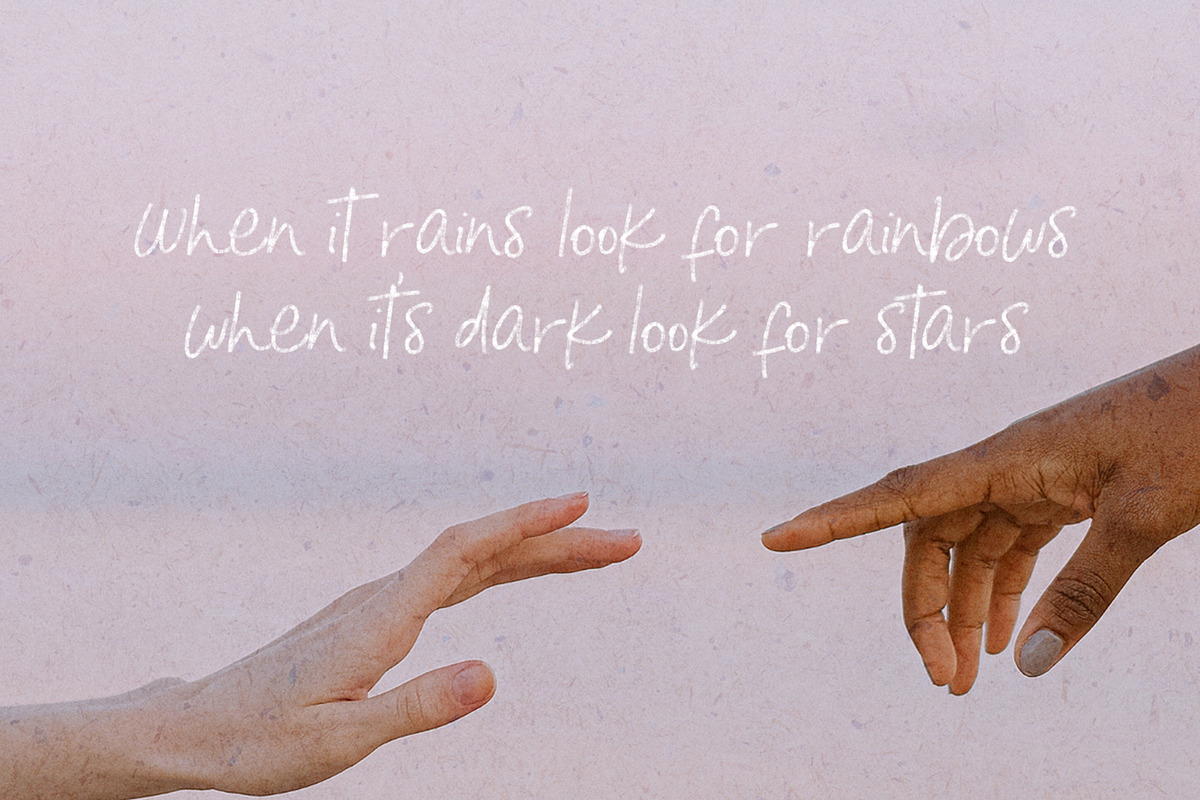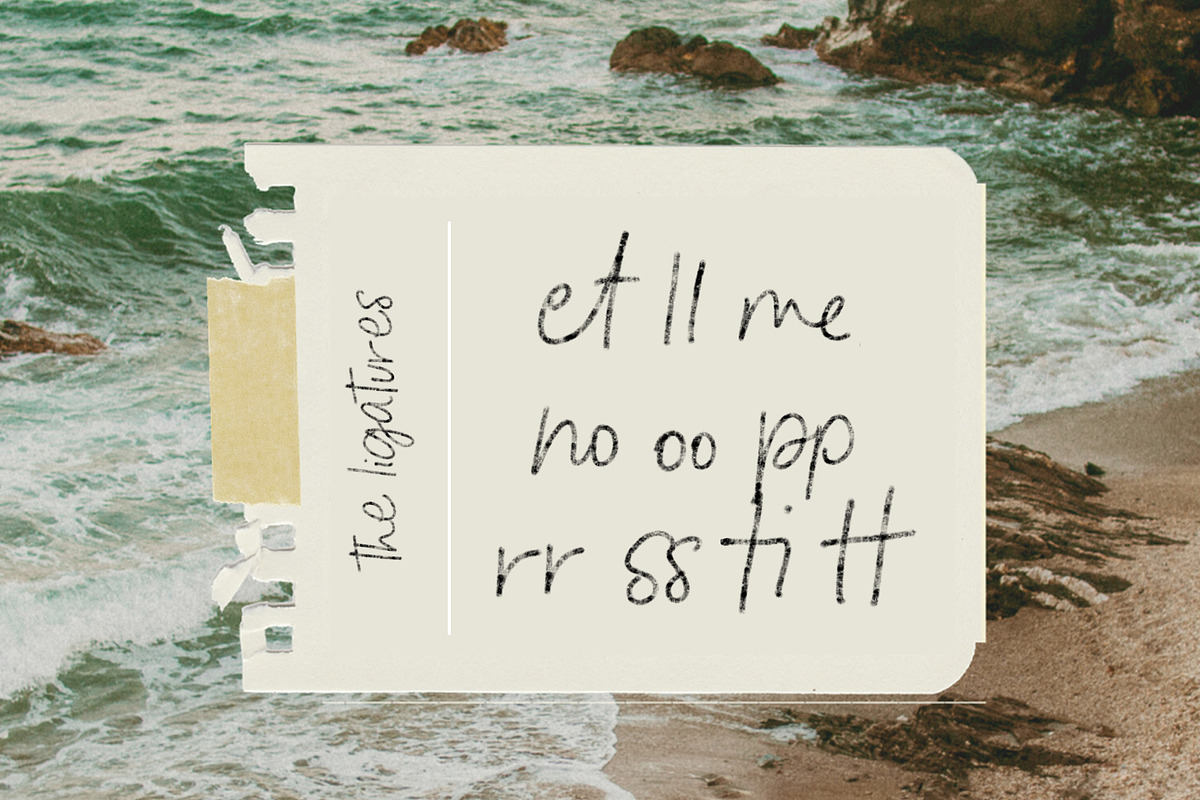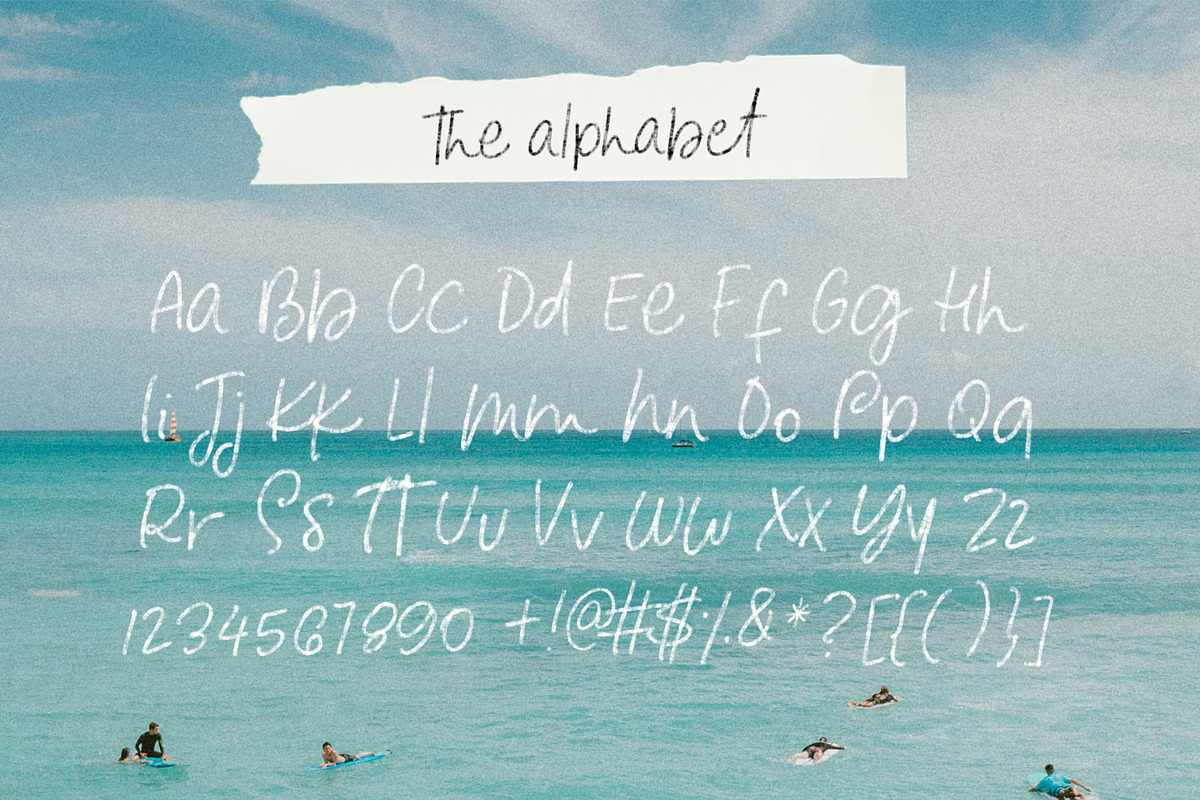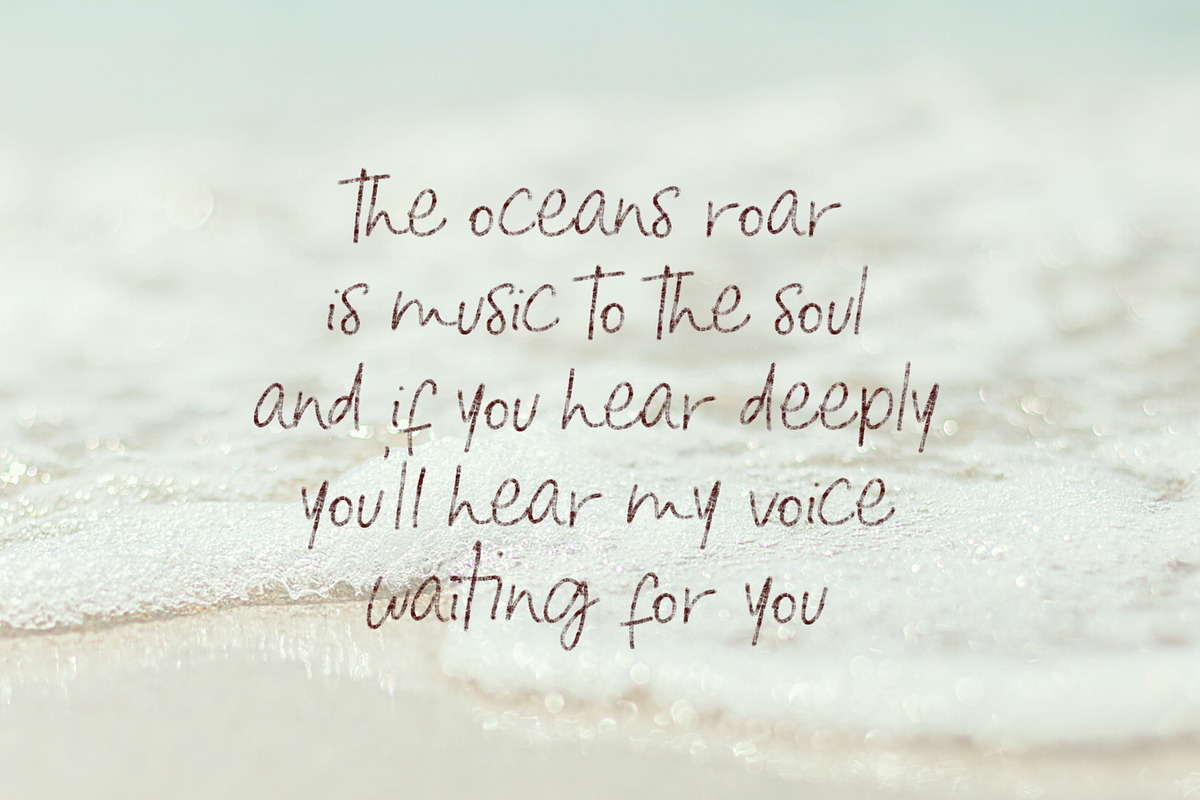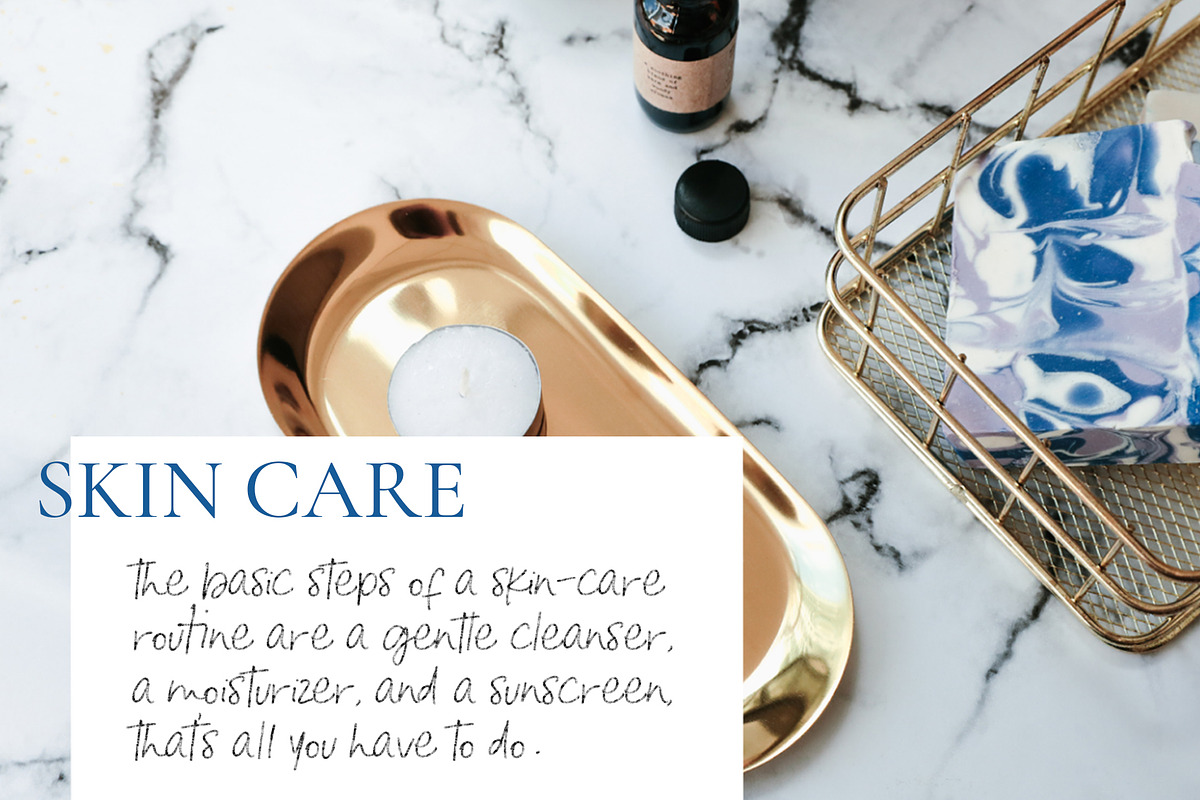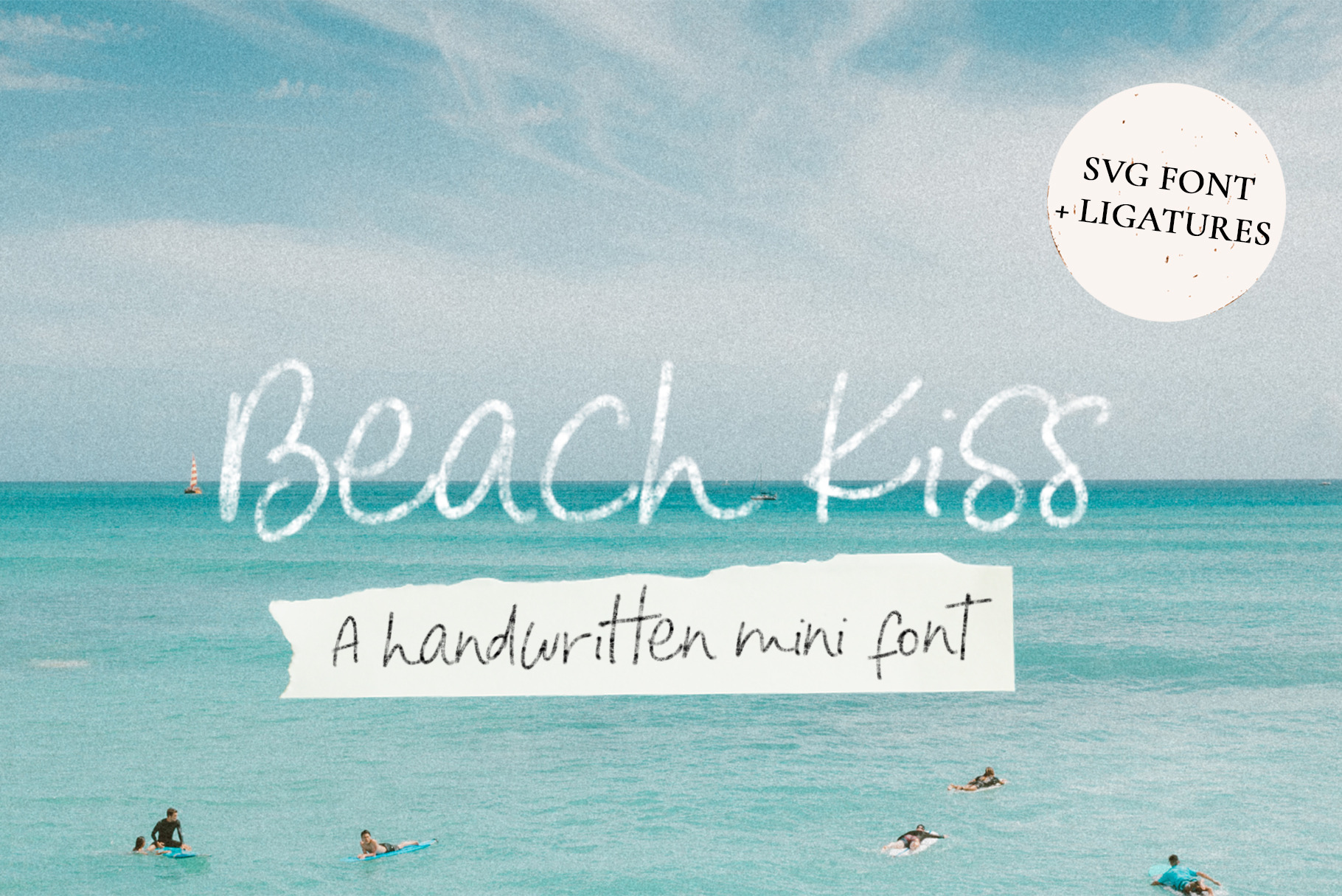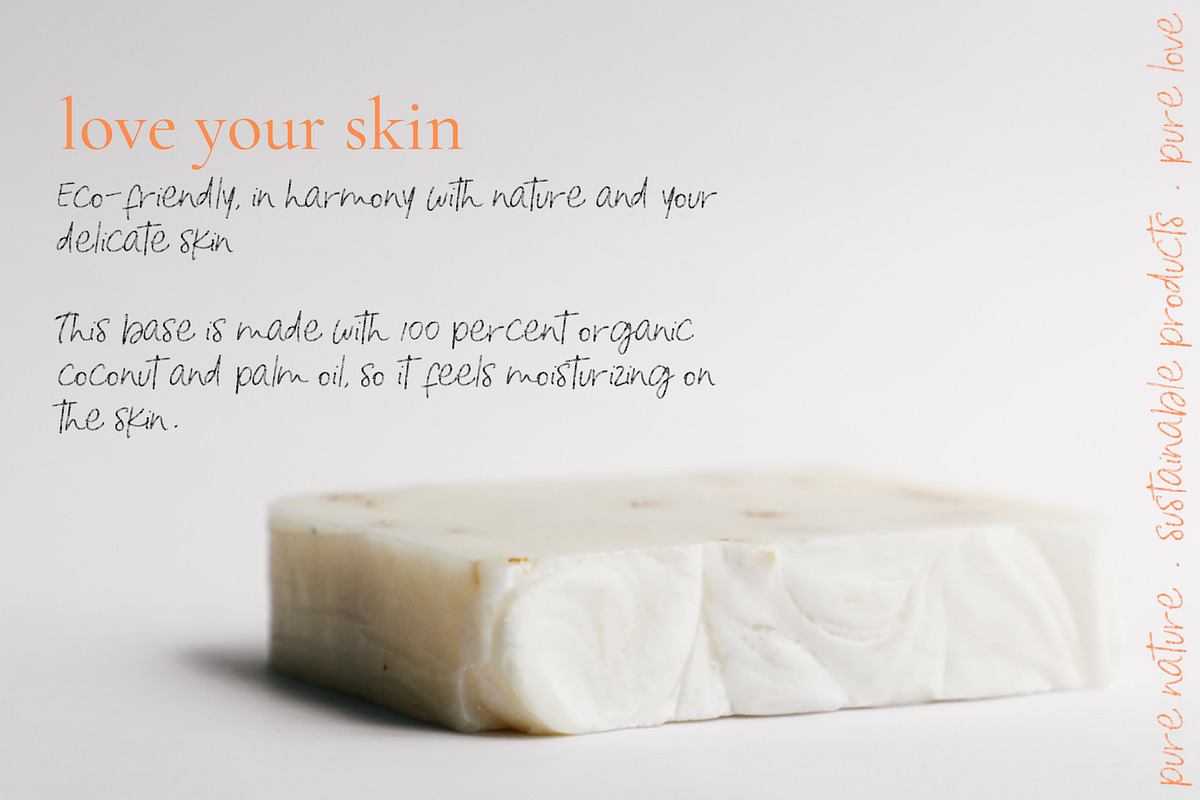
Beach Kiss Mini font
Beach Kiss is my first SVG font. Look at its lovely texture and its beautiful handwritten style. This font will become a staple on your designs, it has lots of organic curves and the perfect ligatures to make it look even more natural.
• This font is a mini version that means it doesn't include accents or diacritics.
- Full upper and lowercase
- Numerals and Basic Punctuation
- 10 unique ligatures